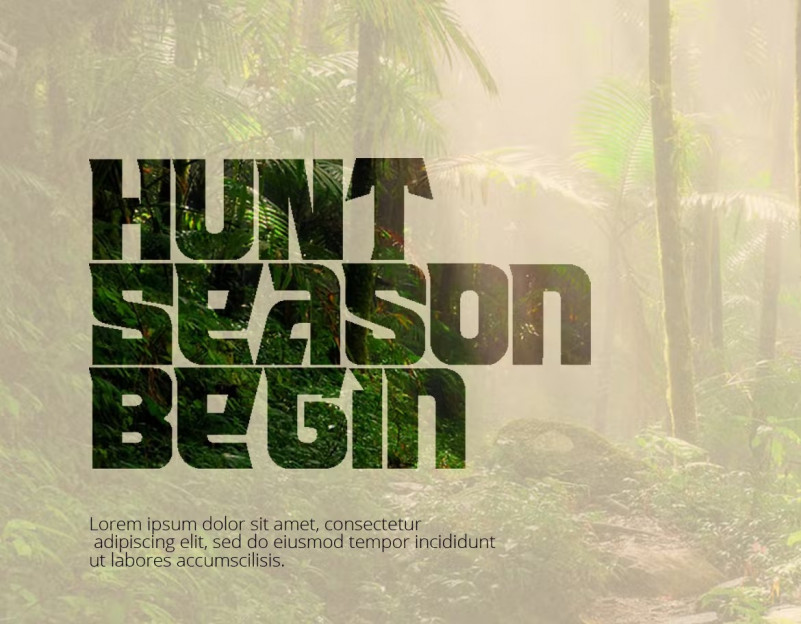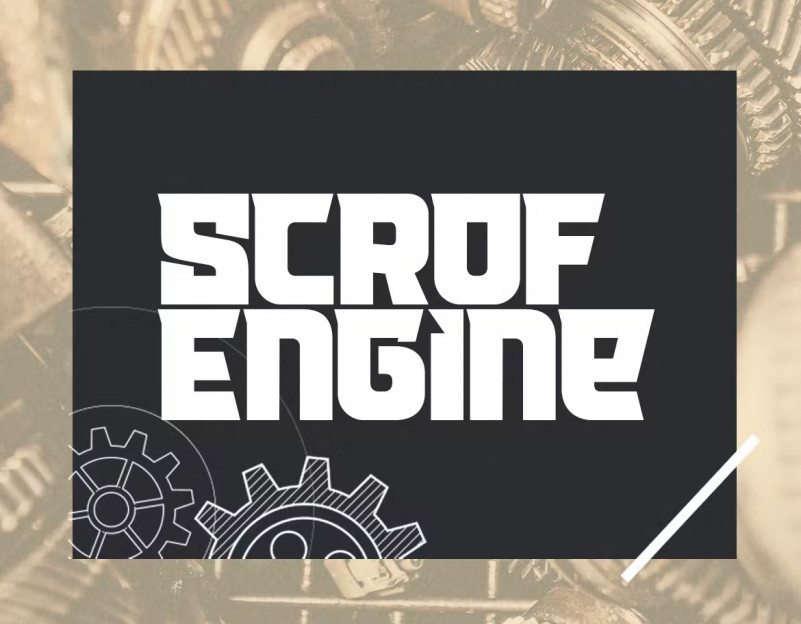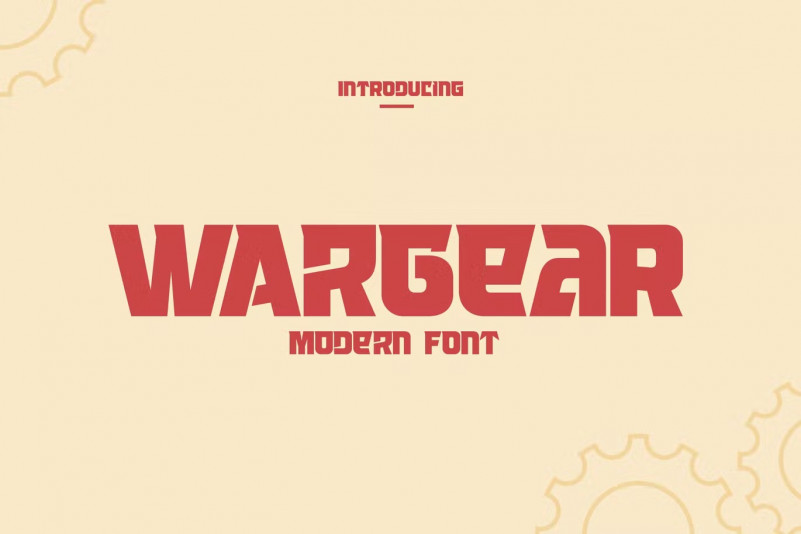
Wargear Font
Wargear is a black display type. Simple in a good way and tough look. This font designed with tight kerning making this font a perfect choice if you want a bold way in your design. The font is great to create a logo tagline, flyer header, or even magazine title.